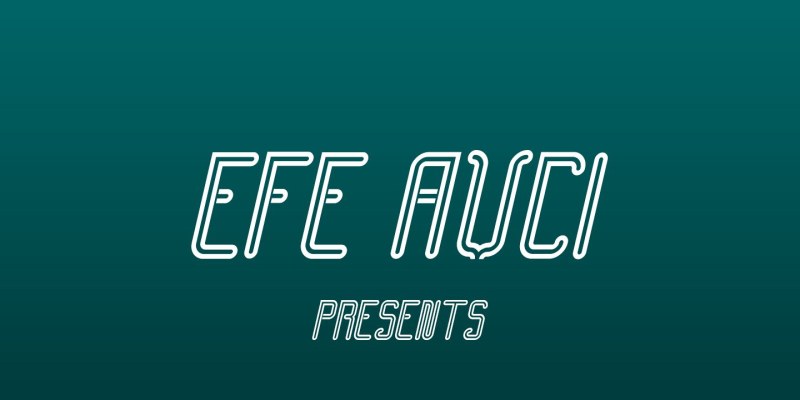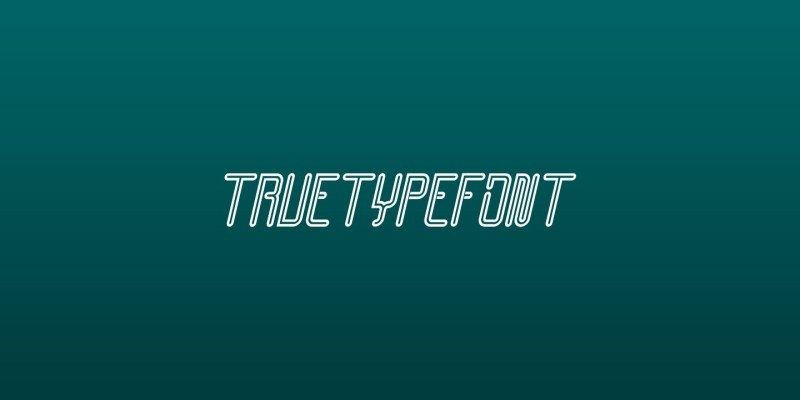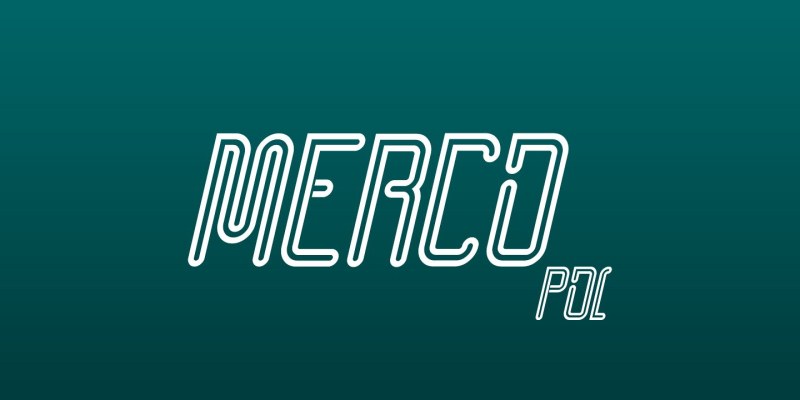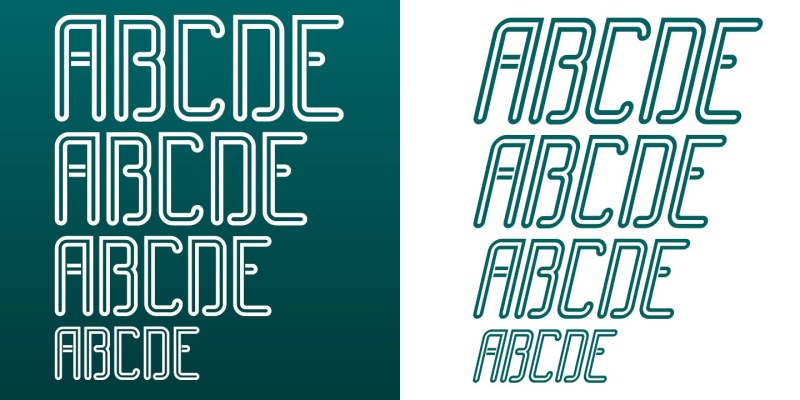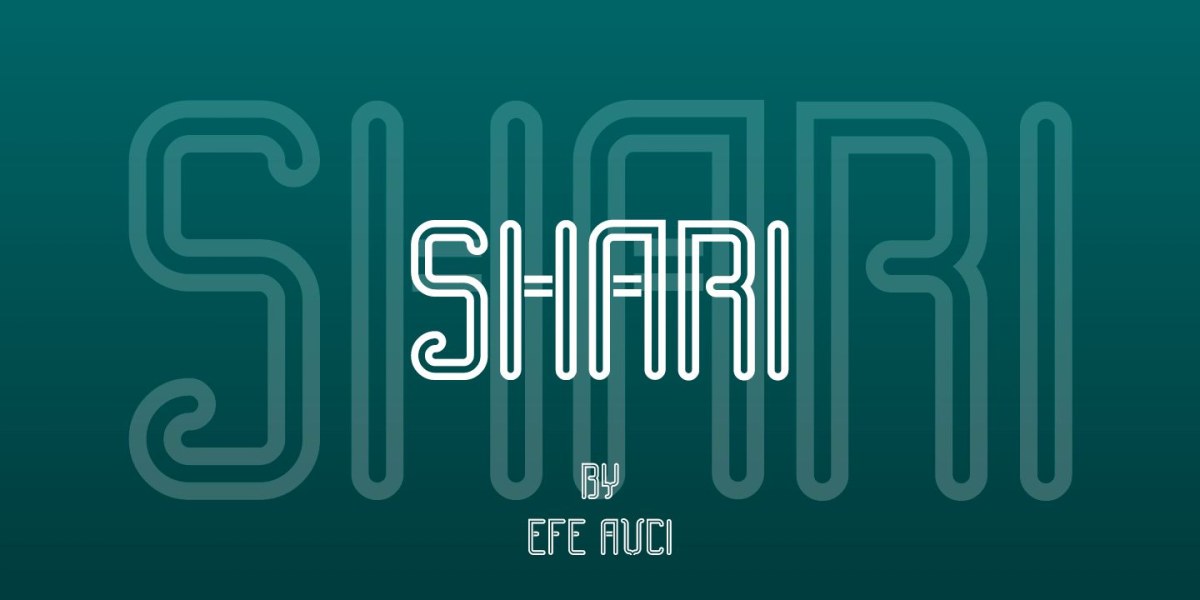
Shari Font Family
Shari is a modern display font. It has a three-line design, a characteristic feature of which is its rounded shape.
Shari Font Family is a Decorative Fonts font that brings a professional and versatile look to your projects. Shari is a modern display font. It has a three-line design, a characteristic feature of which is its rounded shape.